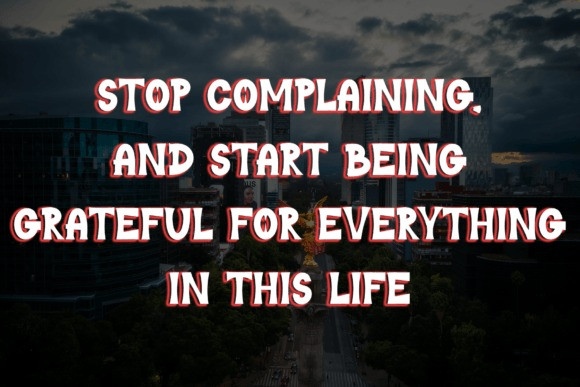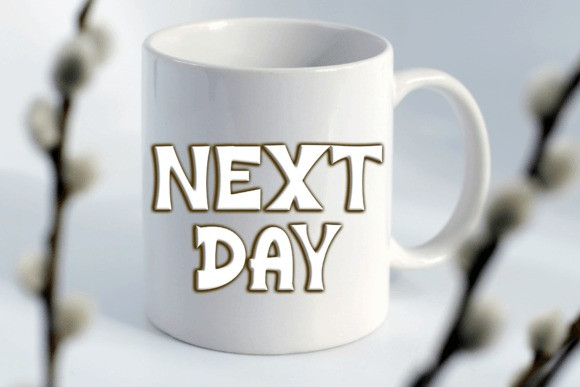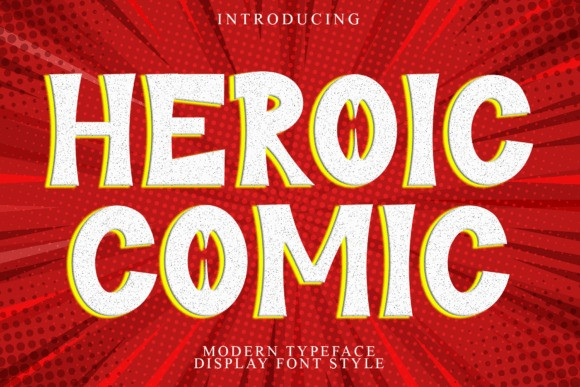
Heroic Comic Font
Heroic Comic Font is a bold and playful font inspired by comic book lettering. It has thick, eye-catching letters that add energy and fun to any design, perfect for titles, posters, and playful projects.